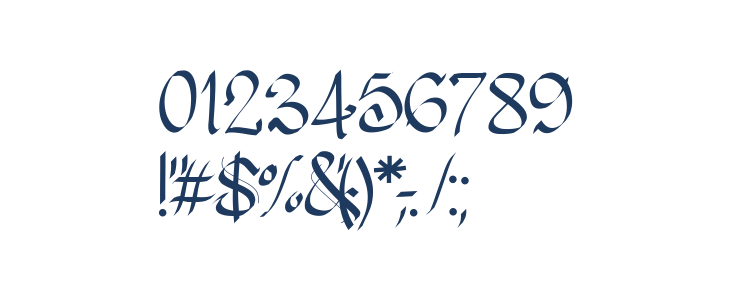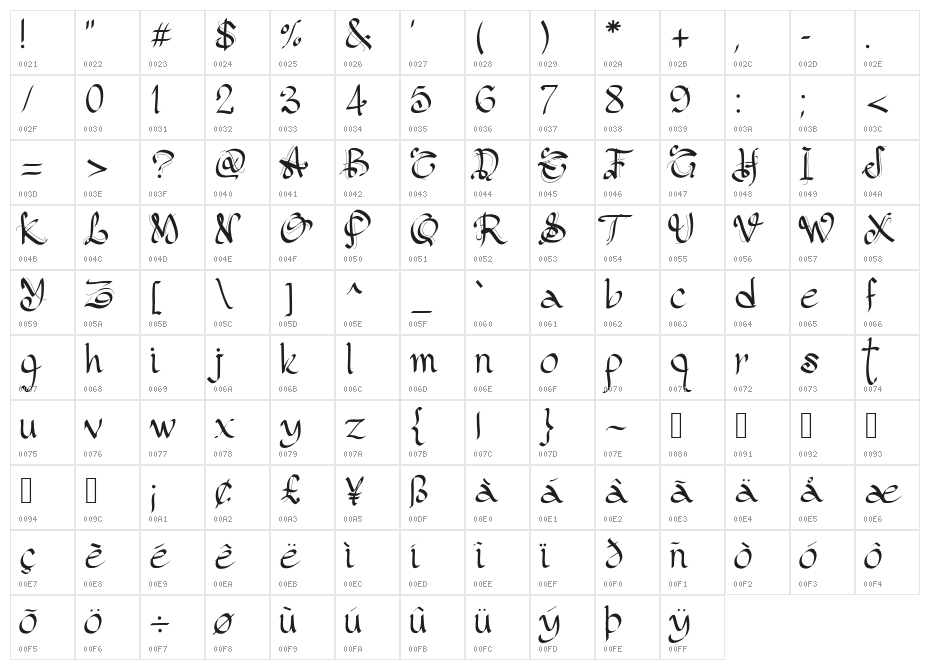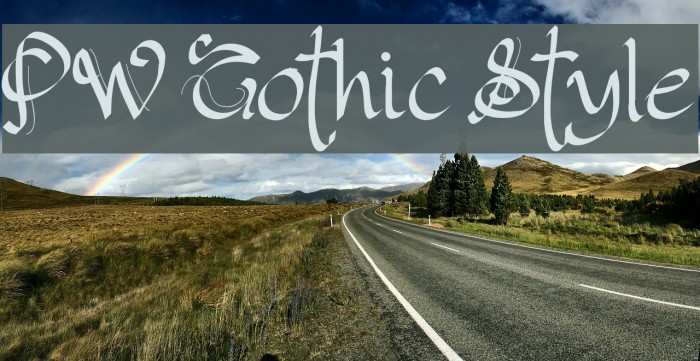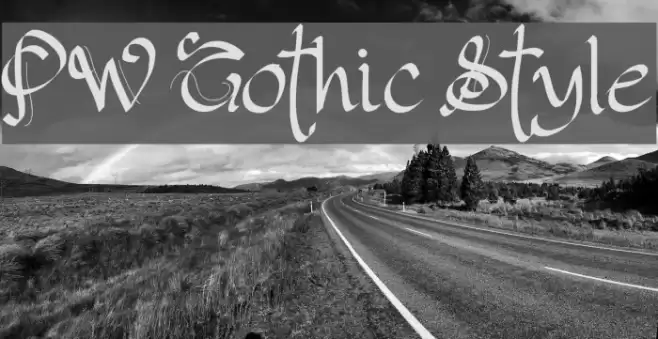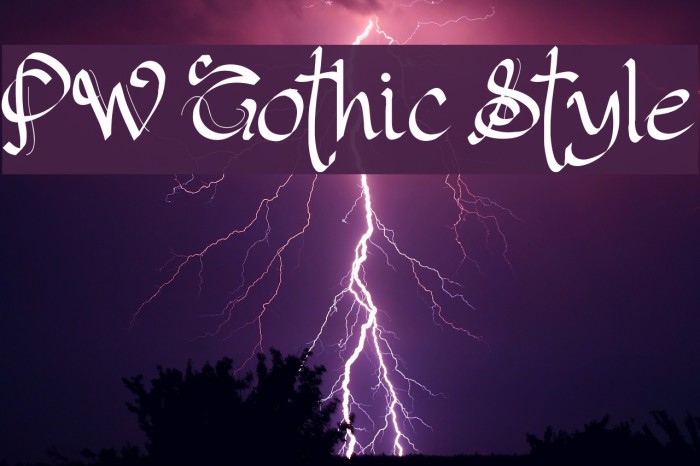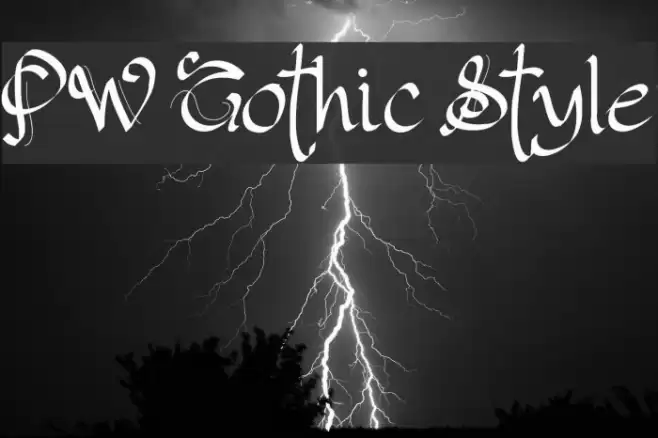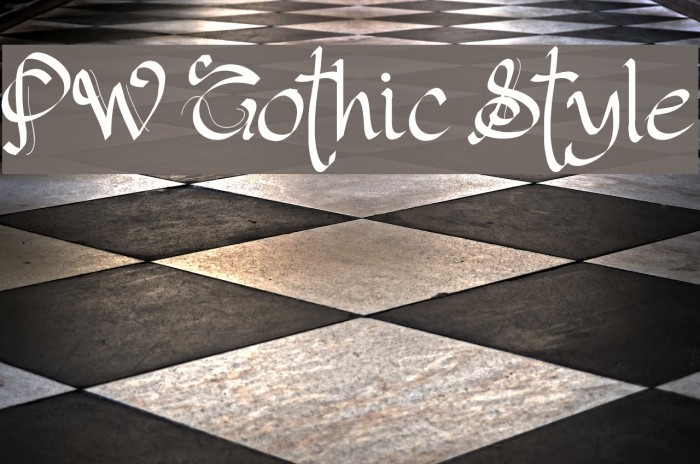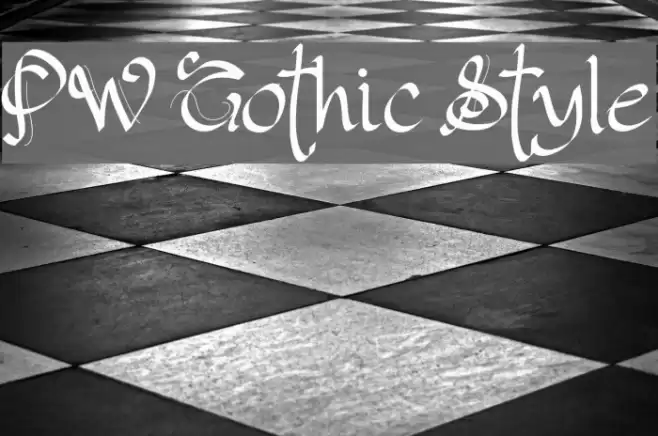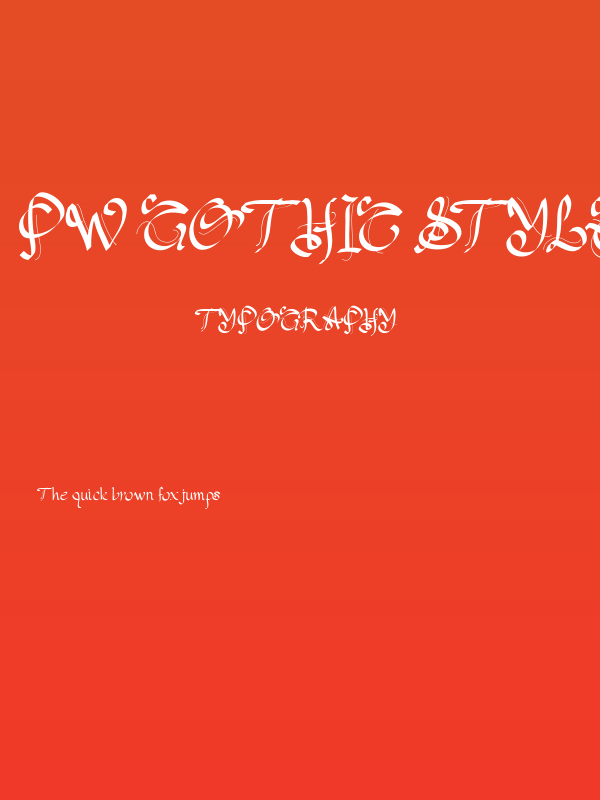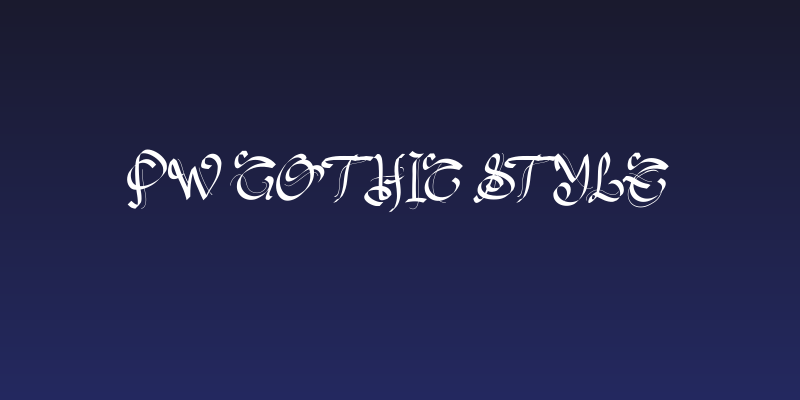
PW Gothic Style Font
PW Gothic Style Description
This font embodies a gothic style with intricate and elaborate strokes that convey a sense of historical elegance and mystery. The uppercase letters are adorned with decorative flourishes, giving them a dramatic and ornate appearance. The lowercase letters maintain a consistent style, with sharp angles and sweeping curves that enhance the gothic aesthetic. The numerals are bold and distinctive, matching the overall theme with their unique design. Special characters are equally stylized, adding to the font's cohesive look. This font is perfect for projects that require a touch of medieval or fantasy flair, making it ideal for book covers, posters, and themed events.
| Proposed Projects | Ideal for book covers, fantasy-themed events, posters, and historical designs. |